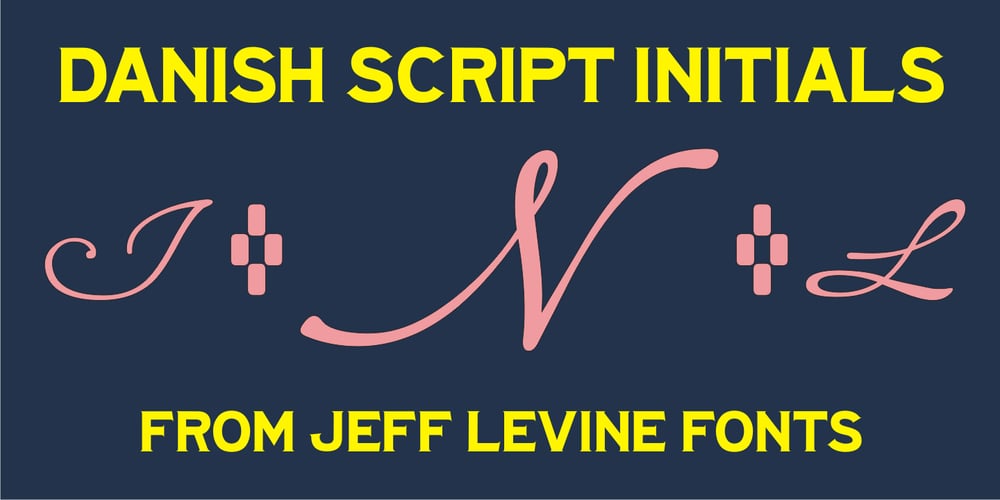
Danish Script Initials JNL
Danish Script Initials JNL font
Danish Script Initials JNL Font Family was designed by Jeff Levine and published by Jeff Levine. Danish Script Initials JNL contains 1 styles and family package options. A set of transfer patterns for sewing decorative monogram initials on clothing was manufactured by Women’s Day magazine circa the 1940s. Designed by renowned Copenhagen-born industrial artist and letterer Gustav Boerge Jensen [April 8, 1898 – June 27, 1954], these initials have been redrawn into a digital font entitled Danish Script Initials JNL. Large initials are on the uppercase A-Z keys, while smaller initials are on the lower case a-z keys and are centered to the larger cap height. An ornament is provided on the asterisk key, and can be placed between the small initials and the larger initial for decorative effect.